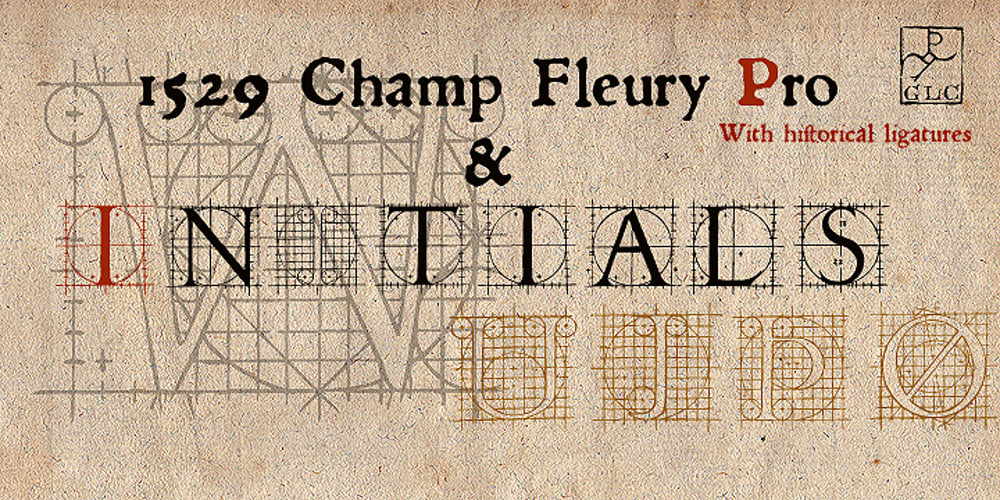
1529 Champ Fleury Initials Font Family was designed by Gilles Le Corre and published by GLC. 1529 Champ Fleury Initials contains 2 styles and family package options. In 1529, Geofroy Tory, French scholar, engraver, printer, publisher and poet, was publishing the well known so called Champ Fleury, printed by Gilles de Gourmond, in Paris. It is a fully illustrated handbook where the author explains how to draw Roman characters. The font used for the text – a Humane/Jenson type – was not a very beautiful one, but rough and ready, and the book is well known for its capital letters designs. We are offering here the two complete historical type sets and more — we have entirely redrawn the lacked letters: J, U and W, Eth, Lslash, Thorn and Oslash in the two initial forms. The text font, 1529 Champ Fleury Regular is now containing all characters for West European (including Celtic), Baltic, East and Central European and Turkish language, and the Initial set 1529 Champ Fleury Init is containing two complete alphabets, with a very great effort to be as close as possible to the original pictures.